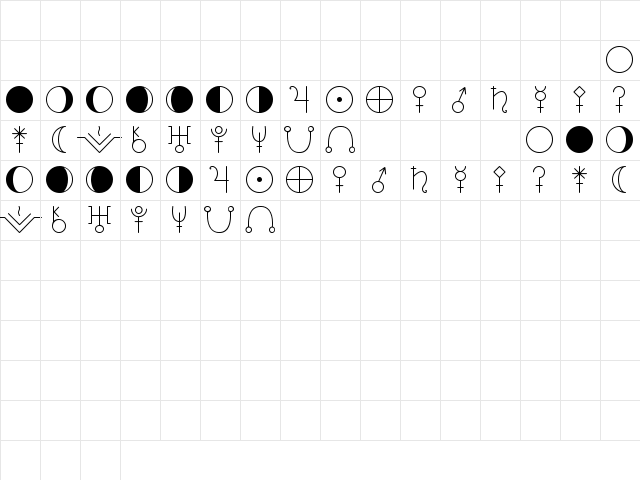
ASTOLOGY ASTROLOGICAL TFB Regular
Designer: kaiser zhar khan
Design Context for ASTOLOGY ASTROLOGICAL TFB
ASTOLOGY ASTROLOGICAL TFB is a composed and adaptable typeface that performs quietly and consistently across a wide range of design contexts.